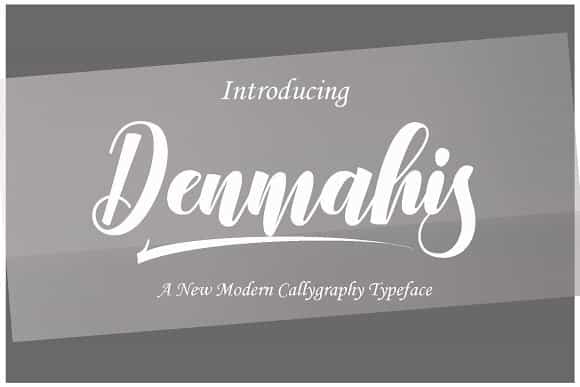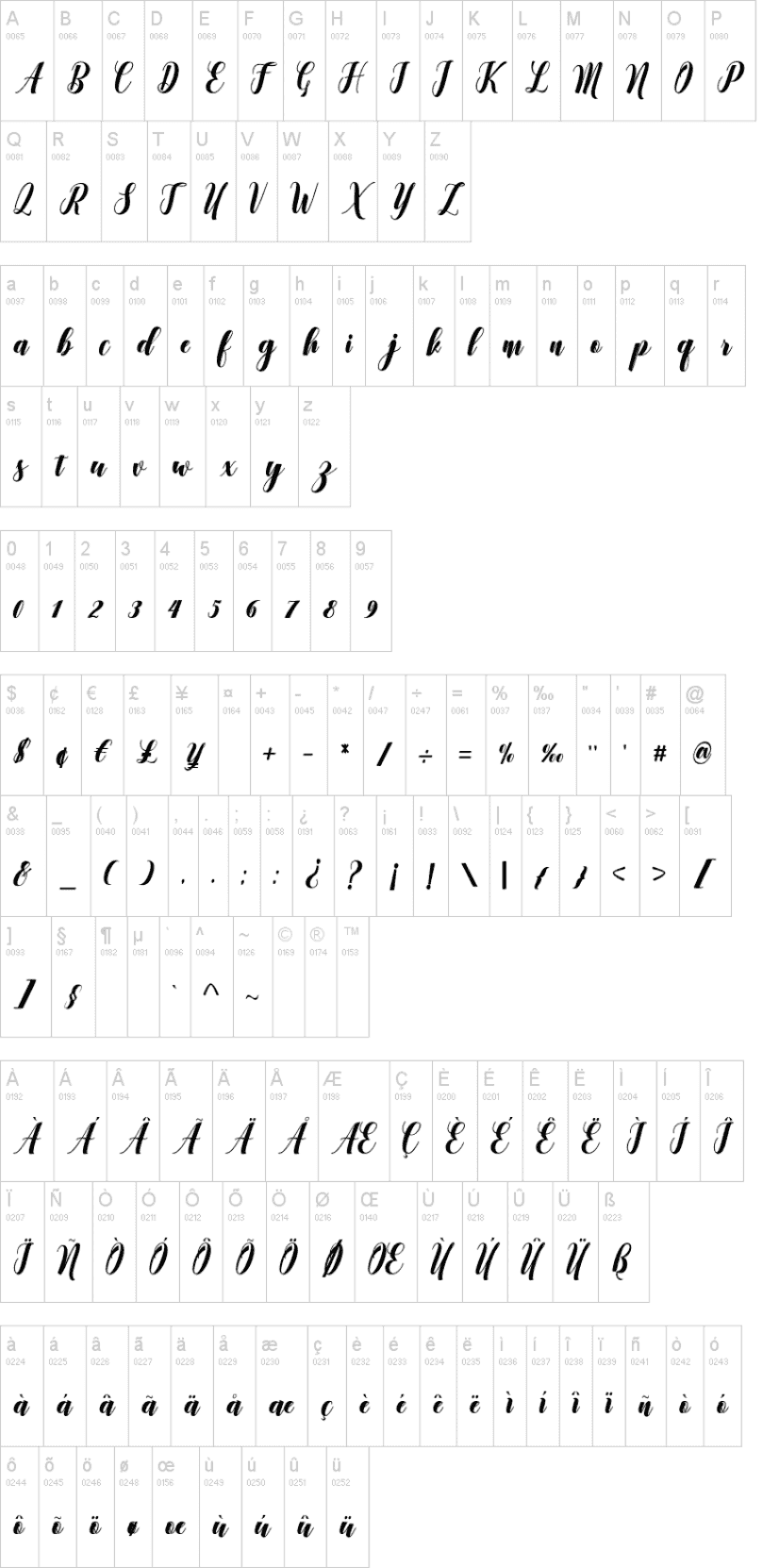
Denmahis is a beautiful and clean Calligraphy font that is best suited for designing invitations, logos, and other graphics. The free version has all the letters from a to z both small and capital and a few symbols as well.